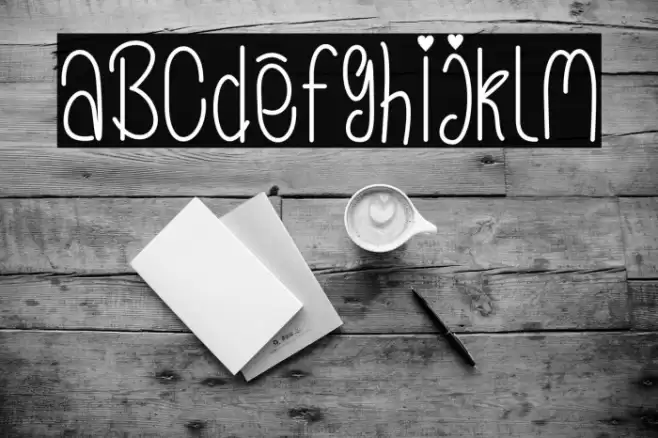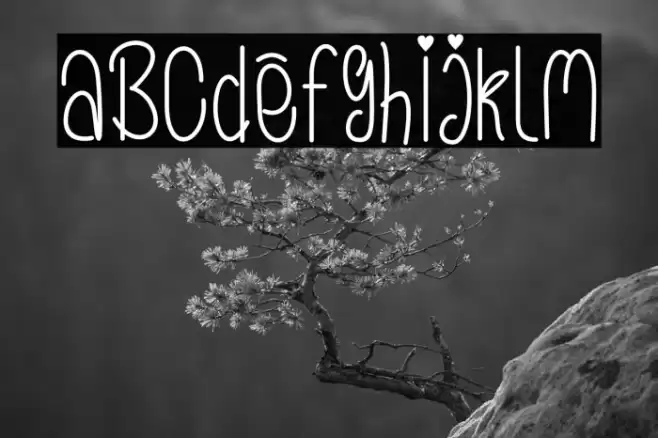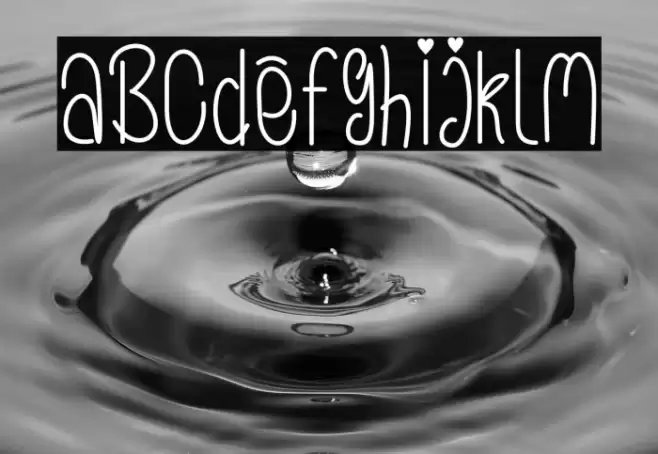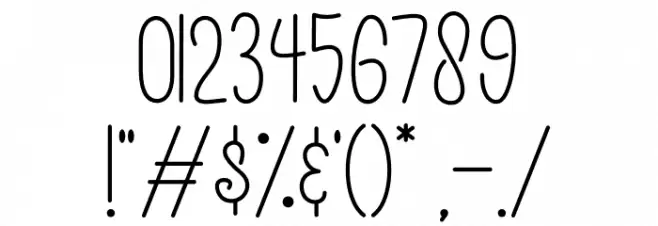
Loveeya Girly Font
Loveeya Girly Description
This playful and whimsical font features a unique blend of rounded and elongated letterforms, creating a charming and friendly appearance. The letters are characterized by their smooth curves and subtle heart-shaped accents, particularly noticeable in the dots of the lowercase 'i' and 'j'. The font maintains a consistent stroke width, providing a clean and modern look. Its tall and narrow structure gives it a distinctive personality, making it stand out in any design. The numerals and special characters follow the same stylistic approach, ensuring a cohesive visual experience across all text elements.
A playful and whimsical font with rounded, elongated letterforms and heart-shaped accents from Uncategorized fonts.
- Font: Loveeya Girly
- Proposed Projects: Ideal for greeting cards, children's books, playful branding, and social media graphics.
- Overall Style: Playful